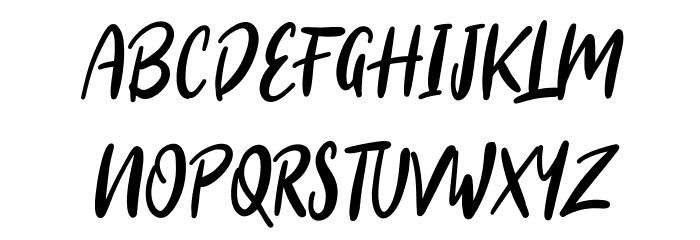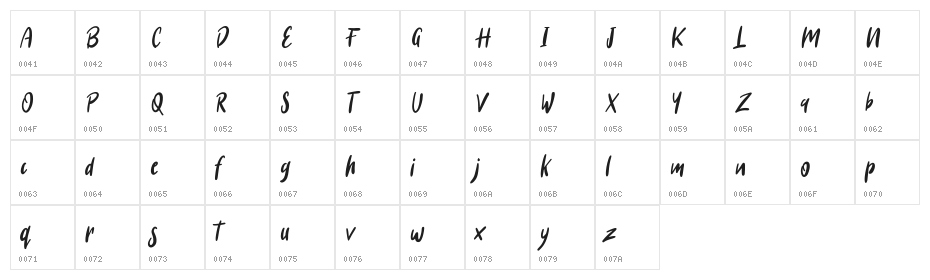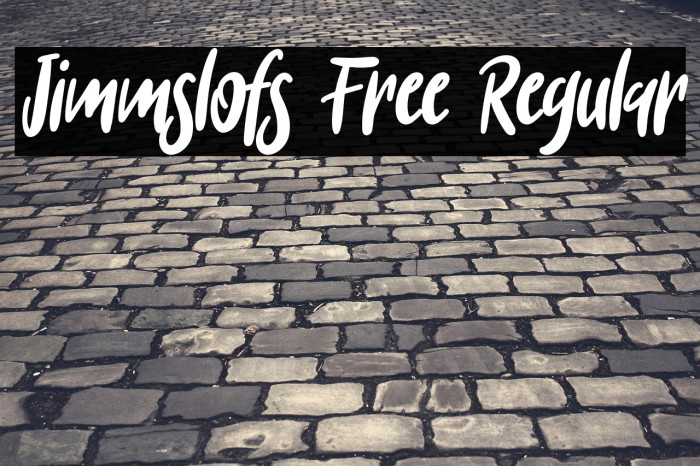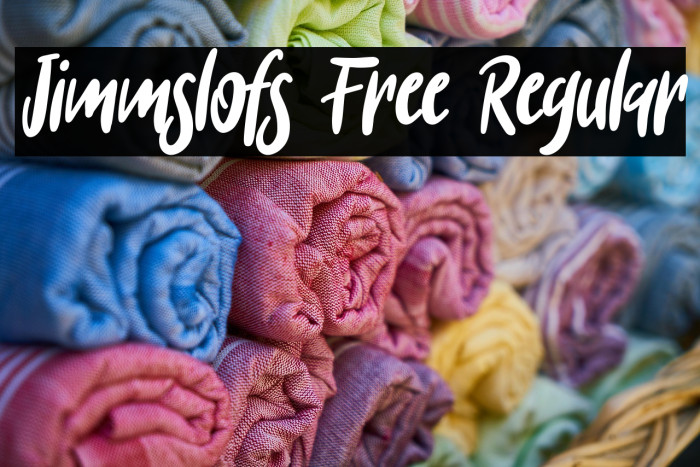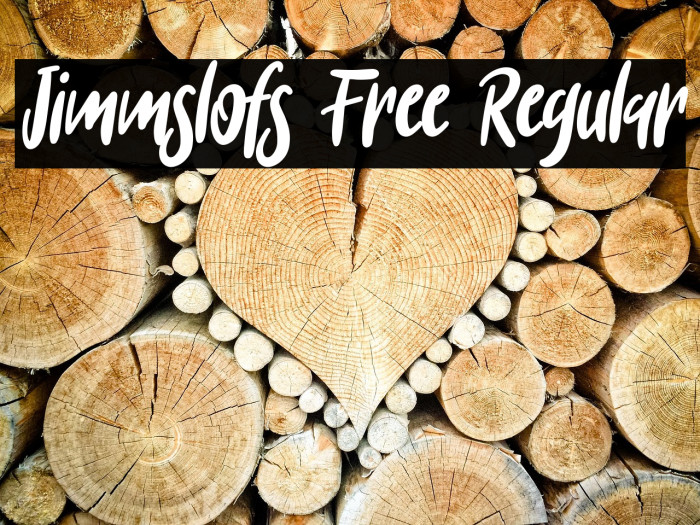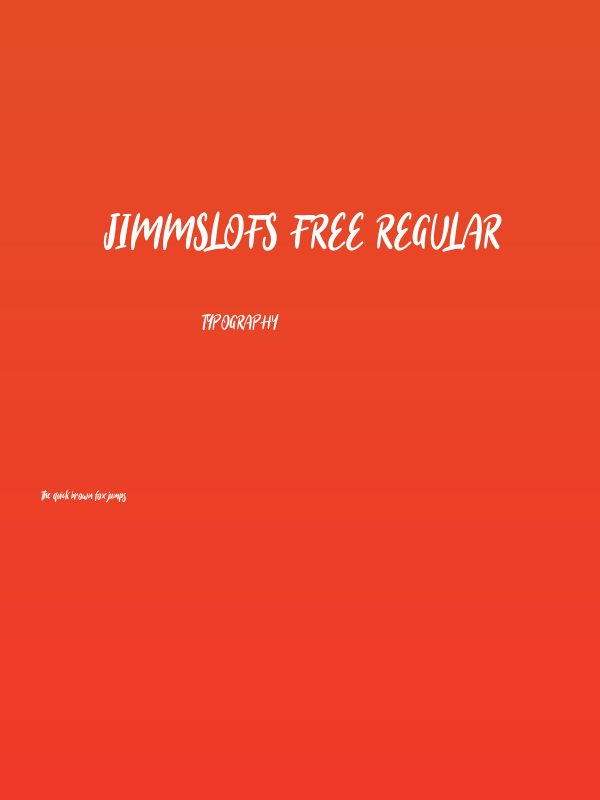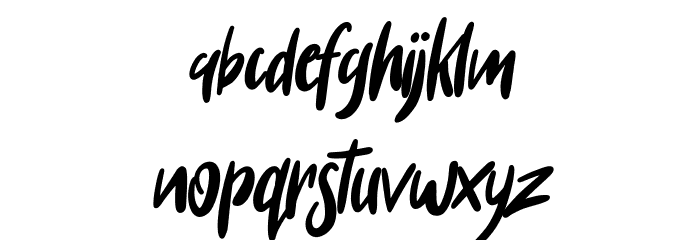
Jimmslofs Free Regular Font
Jimmslofs Free Regular Description
This font features a dynamic and expressive handwritten style, characterized by its fluid and flowing letterforms. The strokes are bold and slightly irregular, giving it a lively and energetic appearance. The uppercase and lowercase letters maintain a consistent style, with a slight slant that adds to the casual and informal feel. The characters are well-spaced, ensuring readability while retaining the font's playful nature. This font is ideal for projects that require a personal touch, such as invitations, greeting cards, and creative branding.